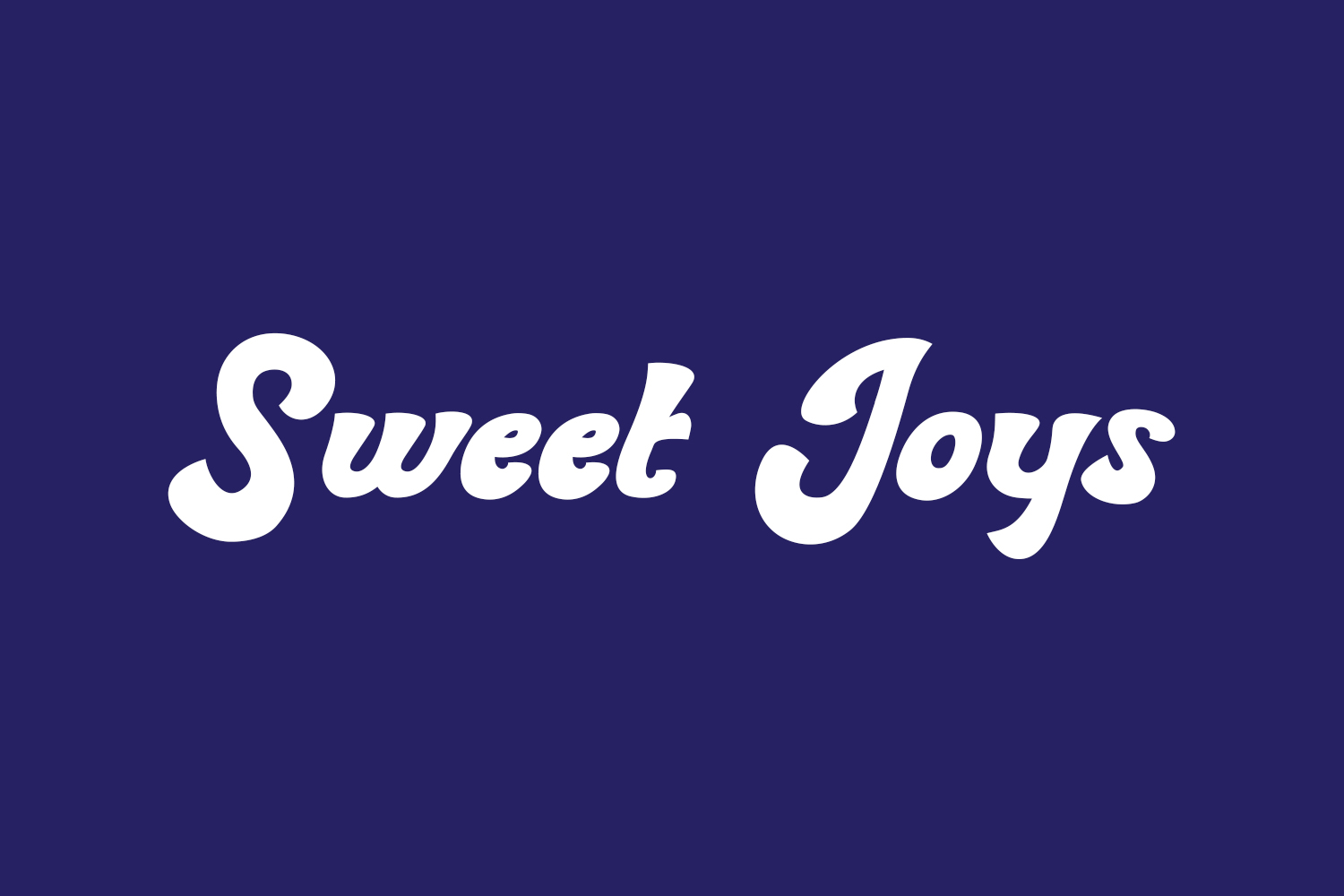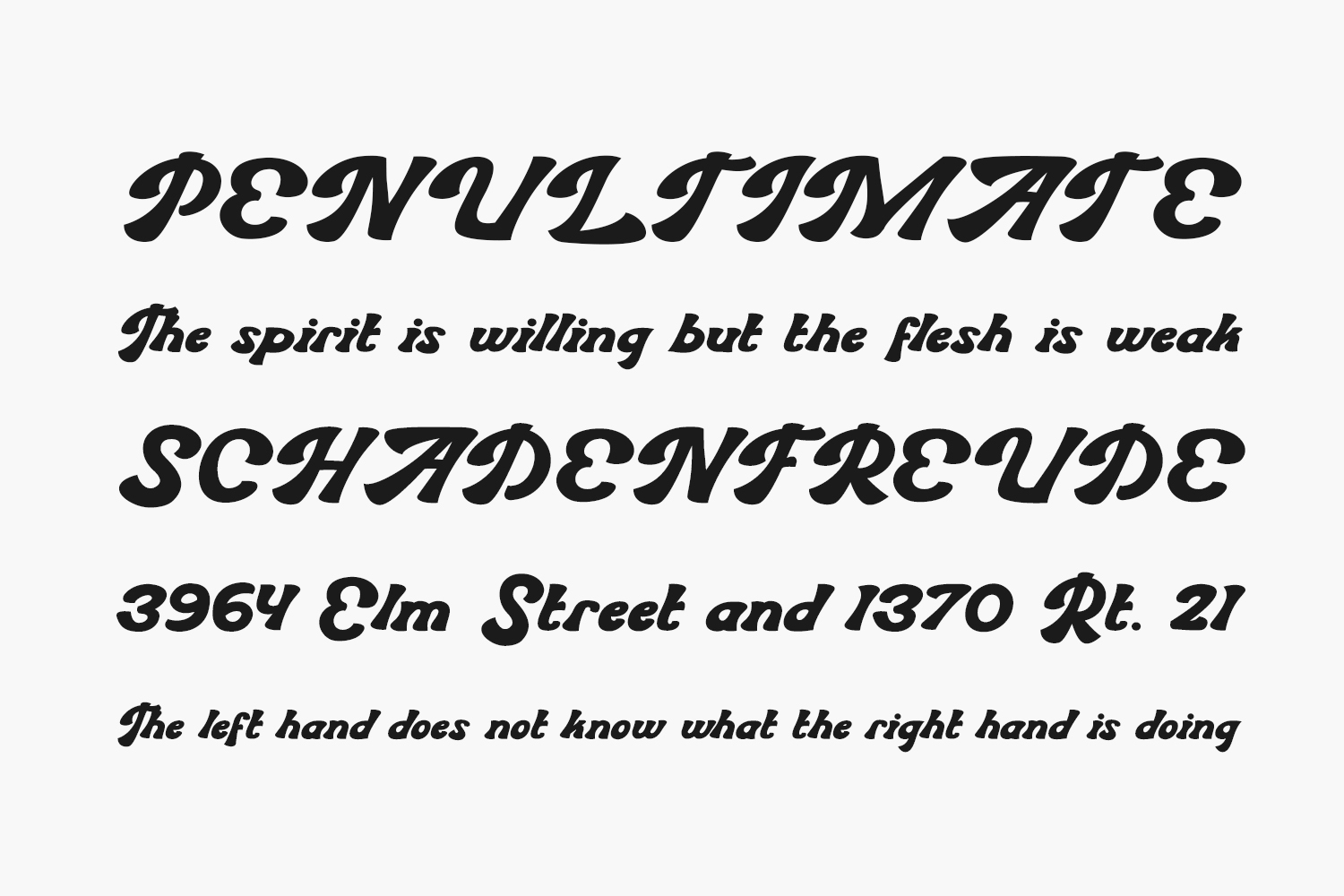
Sweet Joys is a charming and playful script font designed by Khurasan to bring warmth and joy to your creative projects. With its soft strokes, rounded curves, and hand-drawn appearance, this free decorative typeface works perfectly for crafting adorable logos, greeting cards, social media quotes, children’s books, and more. Available in OTF and TTF formats — ideal for designers looking for a cute, expressive script font that adds personality and friendliness to any layout.
Why Choose Sweet Joys?
- Cute & Friendly Style: Mimics natural handwriting with soft, flowing strokes for a warm, personal feel.
- Ideal for Kids’ Projects: Perfect for birthday cards, nursery designs, or educational materials needing a playful tone.
Where to Use Sweet Joys?
Sweet Joys shines across a variety of creative applications:
- Logos & Branding: Adds warmth to brand identities for toy brands, baby stores, or cartoon studios needing a friendly tone.
- Kids’ Books & Illustrations: Perfect for story titles, character names, or illustrations that need a fun and approachable style.
- Greeting Cards: Brings charm to thank-you notes, invitations, or handmade gift tags.
- Packaging Design: Great for product labels on stuffed animals, mugs, notebooks, or candy wrappers.
- Social Media Graphics: Creates bold text overlays for Instagram Stories, Pinterest pins, or TikTok videos with a whimsical vibe.
Design Tips with Sweet Joys
To get the most from Sweet Joys, pair it with minimalist sans-serif fonts like Modern Sans Serif 7 or Brutel for contrast and readability. Use this font at large sizes to highlight its expressive detailing and organic flow. For print work, apply it over pastel backgrounds or combine with cartoon-style visuals to enhance its playful appeal. Try our interactive font preview tool below to test Sweet Joys with your own text before downloading!